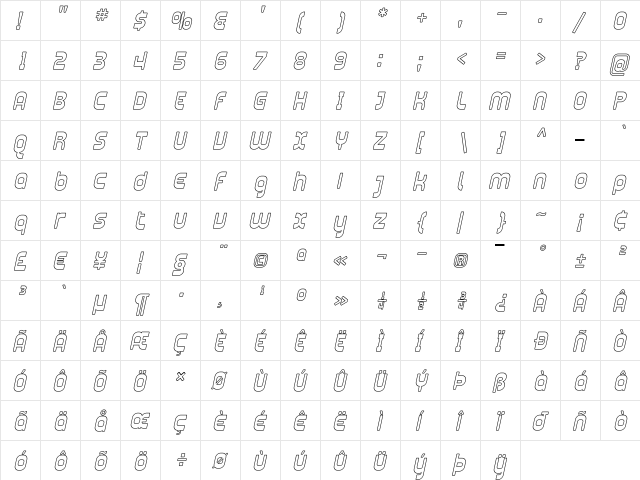
Plasmatica Outline Italic
Design Context for Plasmatica Outline Typeface
Plasmatica Outline brings ornamental detail and strong personality to headlines and identities, where visual impact matters more than quiet functionality. The slanted form adds forward momentum and visual energy.
Font Pairing: Pair with a clean neutral sans-serif for body copy to let Plasmatica Outline's character lead without overwhelming the composition.
Pro Tip: Use Plasmatica Outline exclusively at display sizes — it was designed to be seen, not read at length. Let a neutral companion handle body copy.